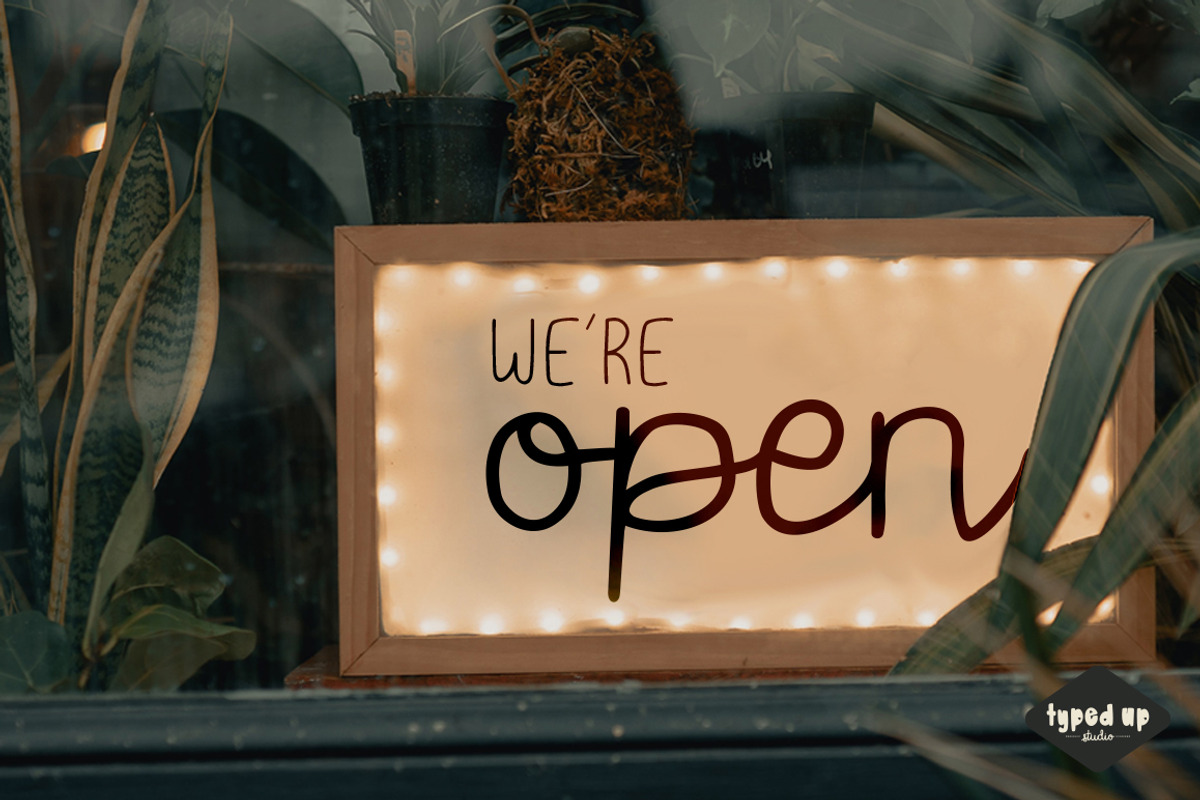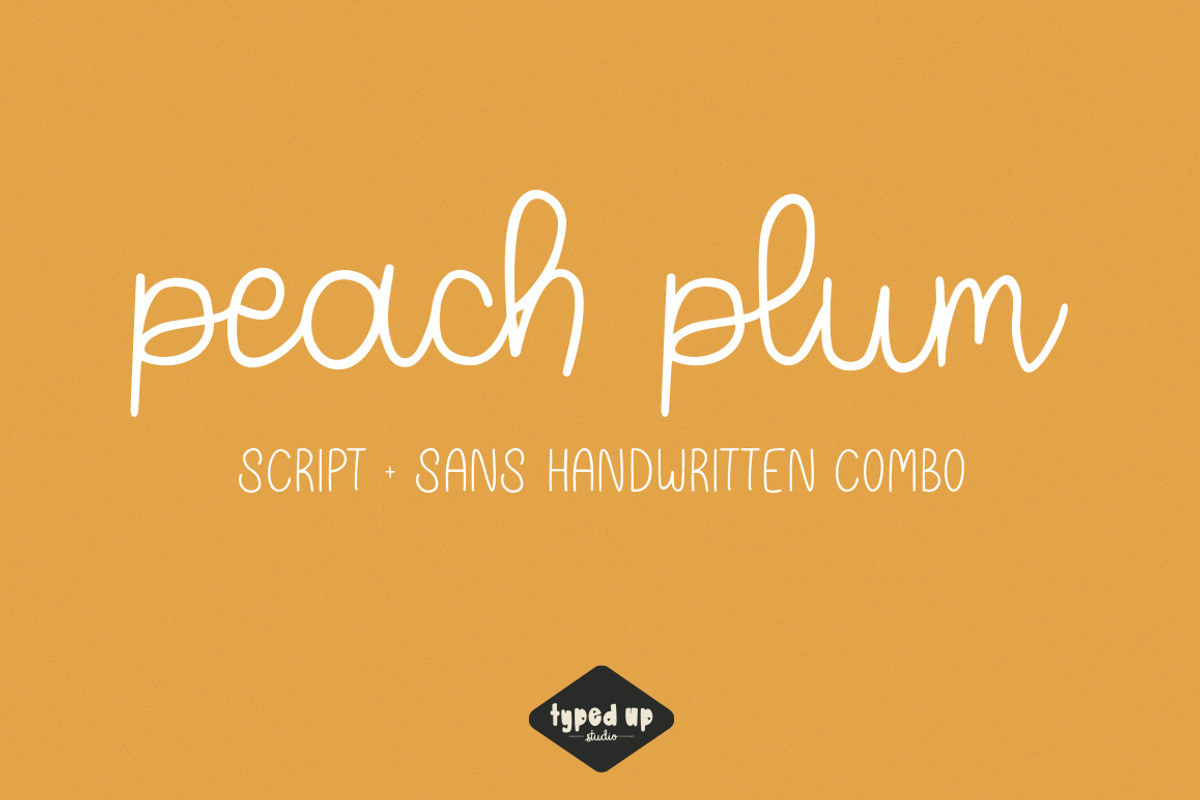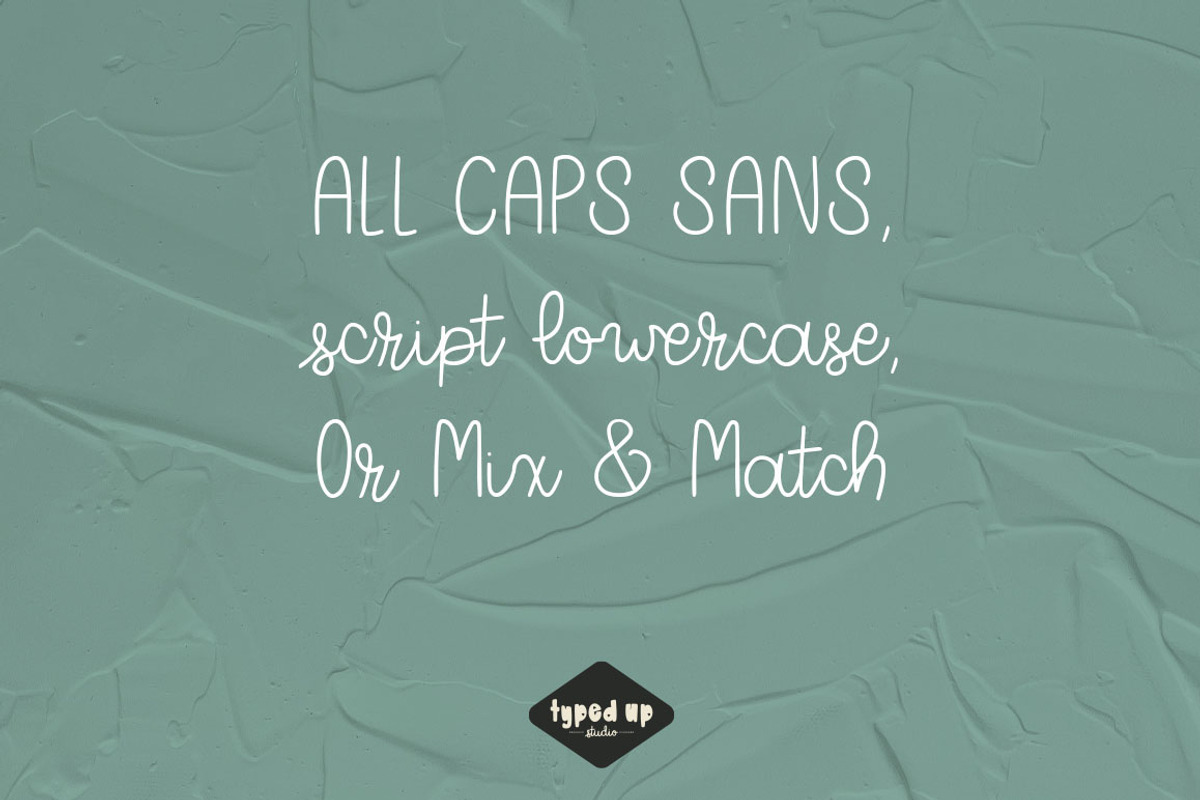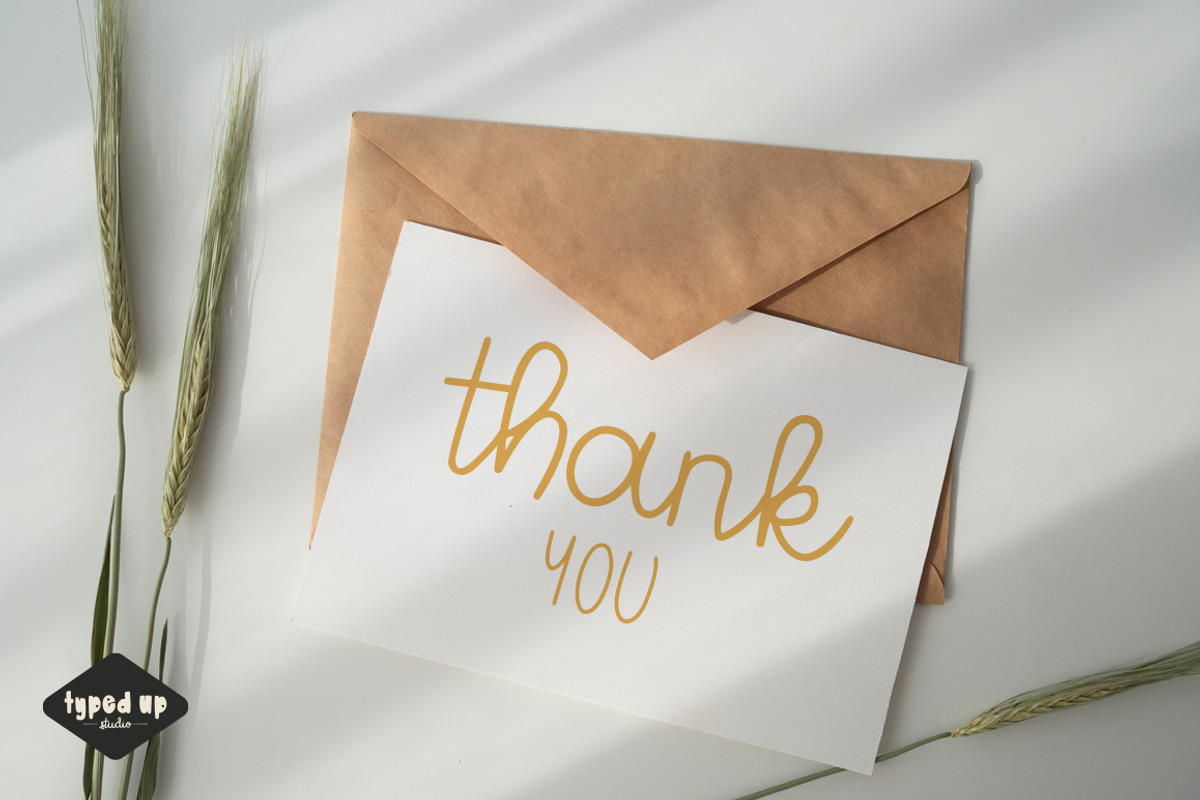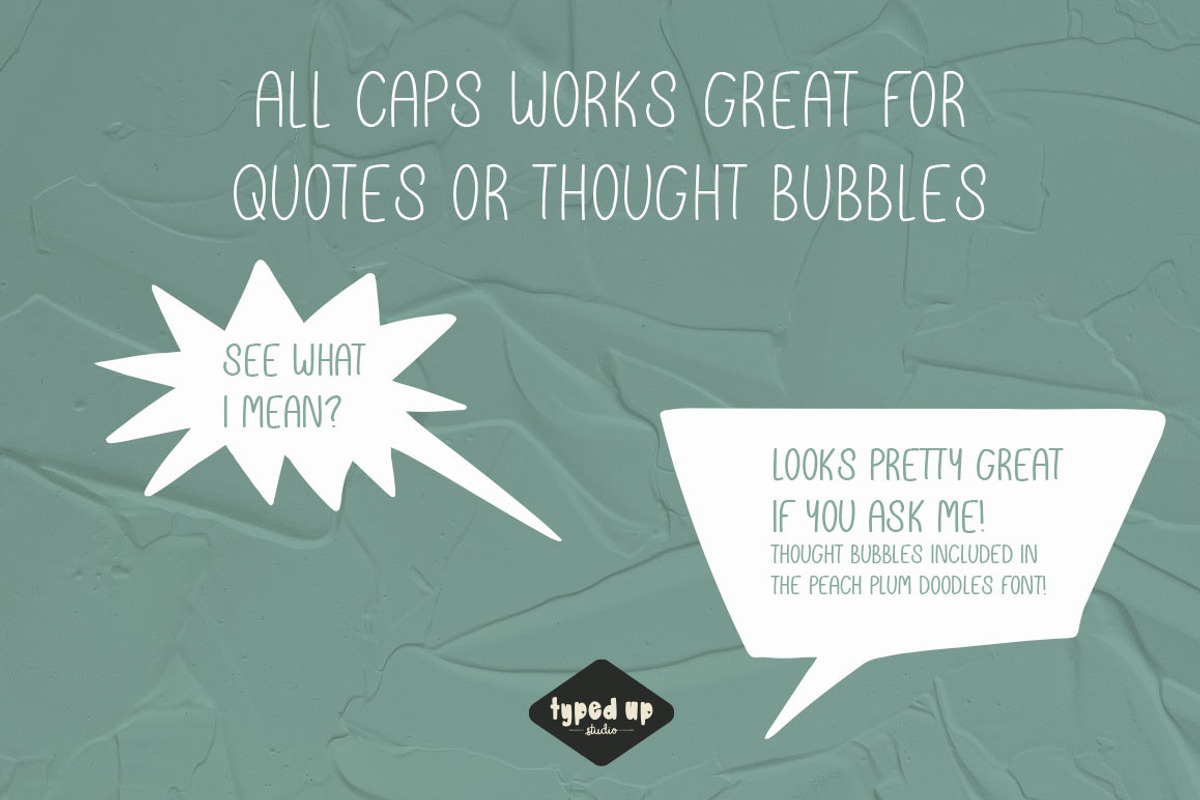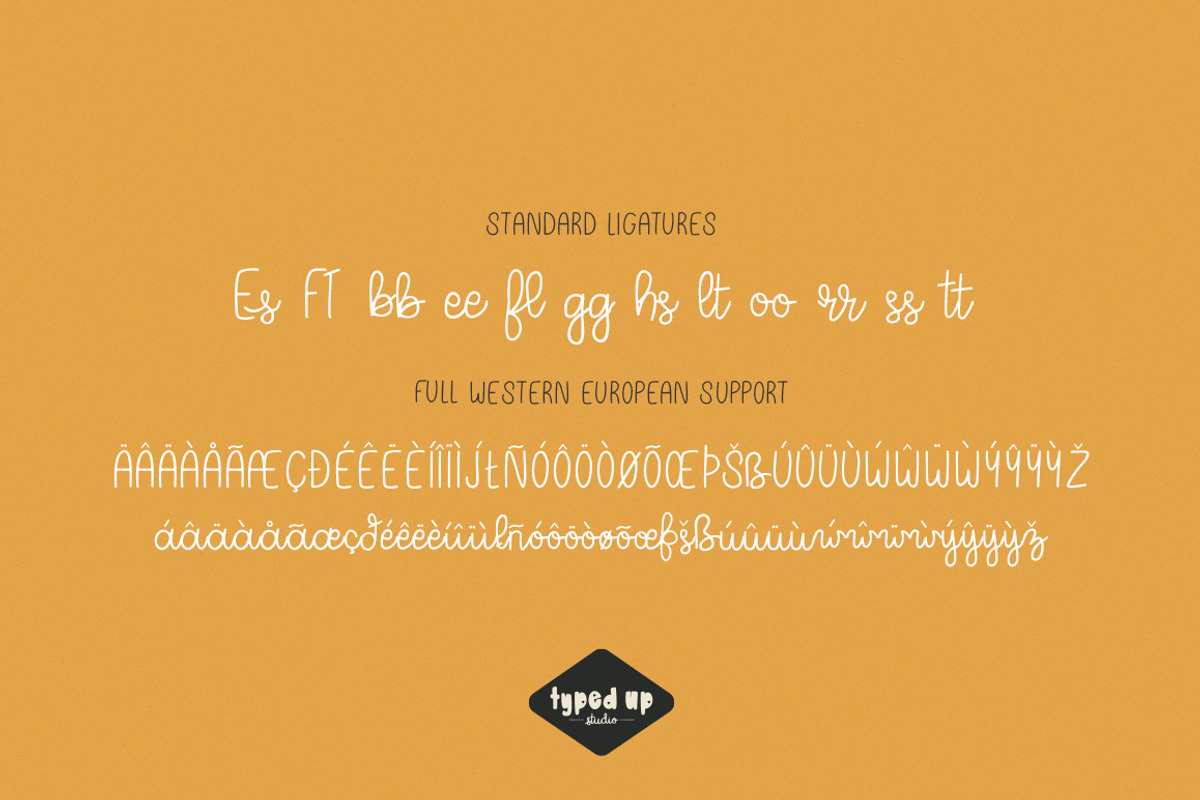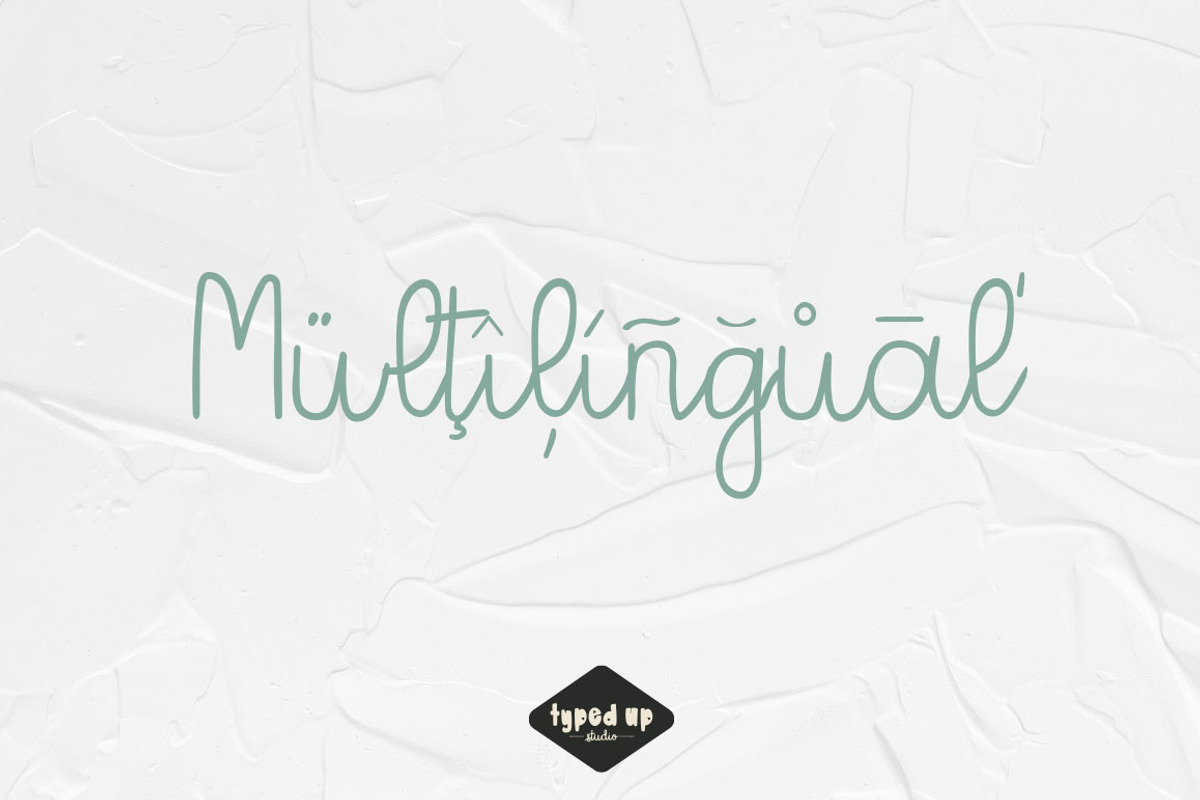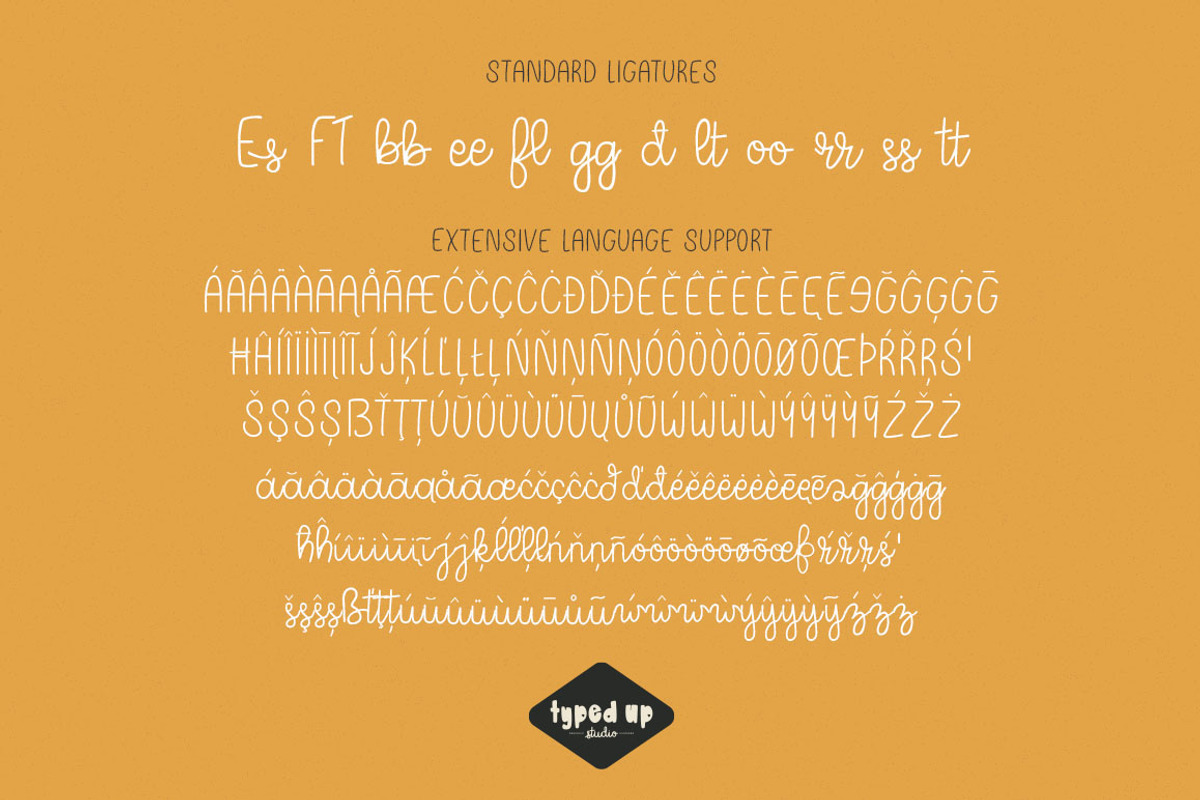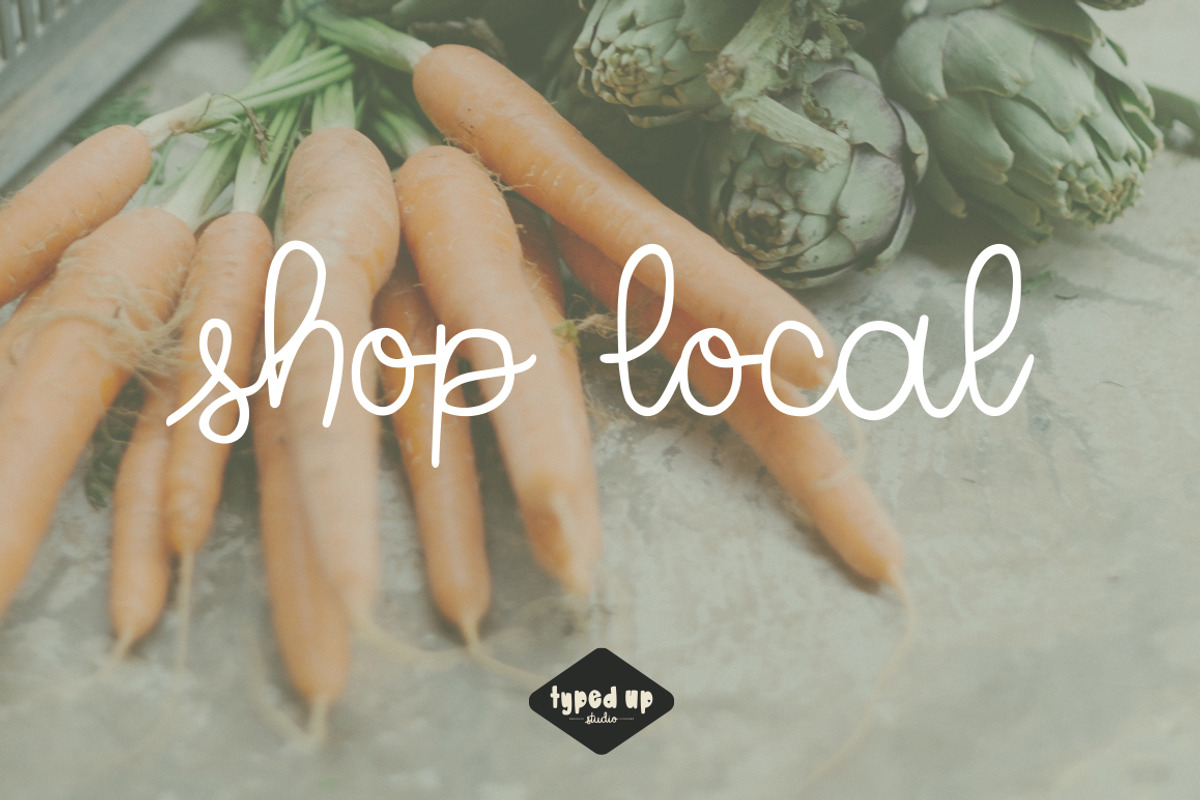
Peach Plum | Handwritten Script Font
Peach Plum is a bubbly handwritten script, perfect for freshening up your design projects. Use all caps for a sans font, all lowercase for pure script, or mix and match!
Add a custom, hand-crafted feel to your brand, notes, or packaging without the extra work... just type it! Peach Plum features 12 standard ligatures and extensive language support for all European and South American Countries, although please test your characters in the text box before purchasing to ensure you have what you need,